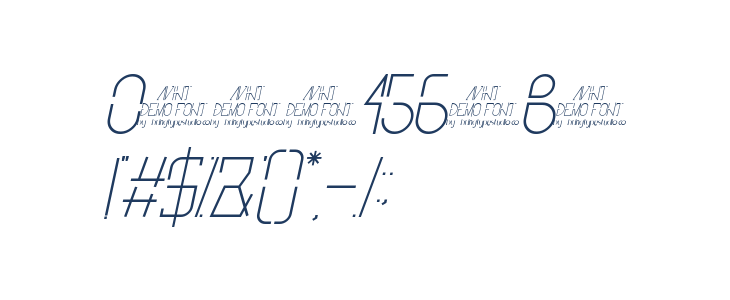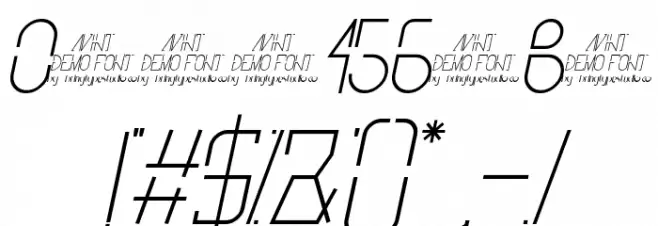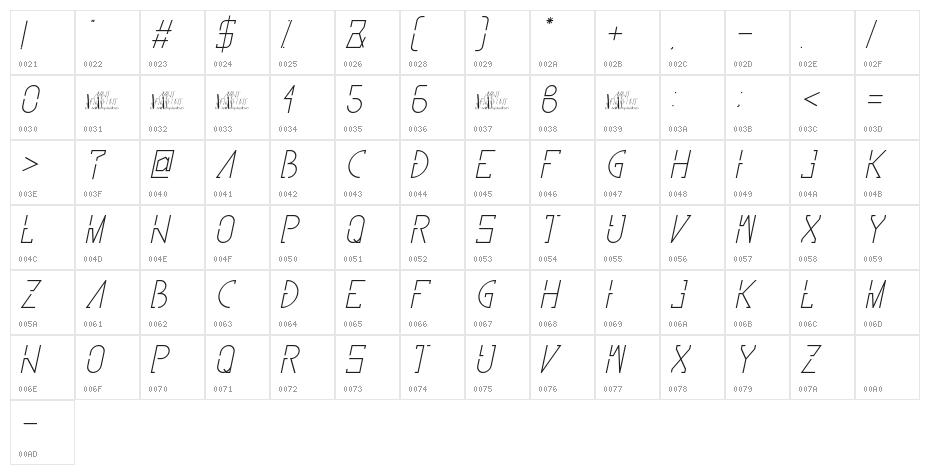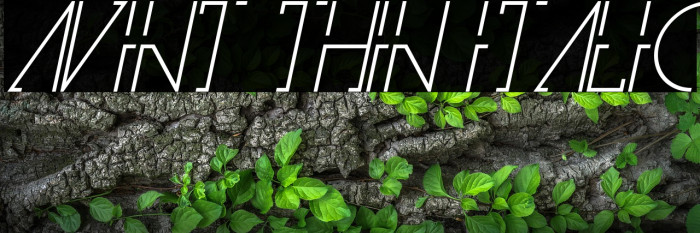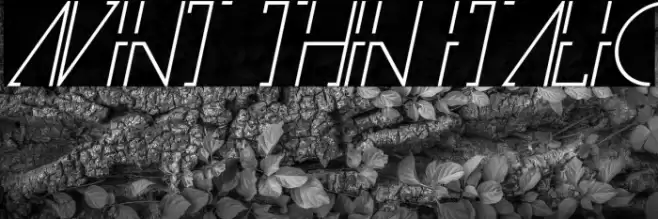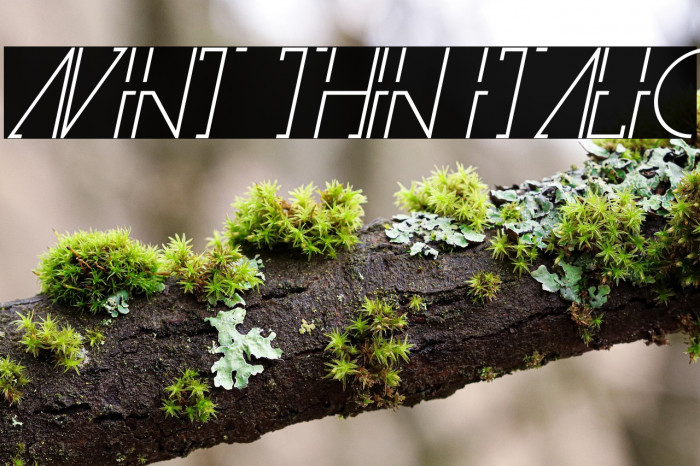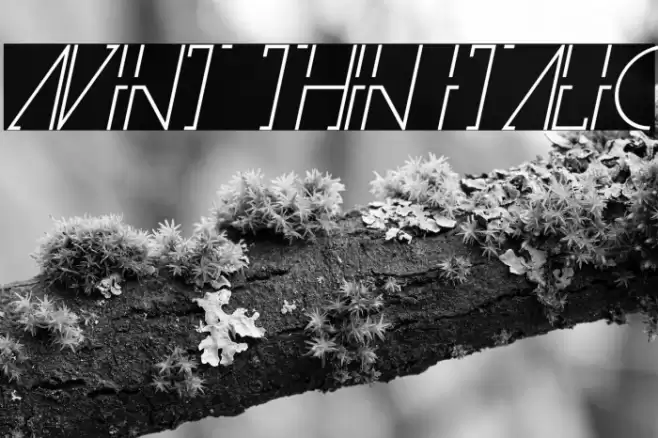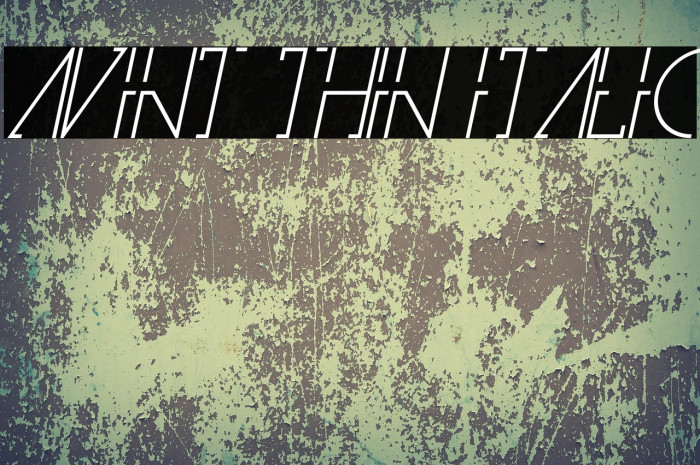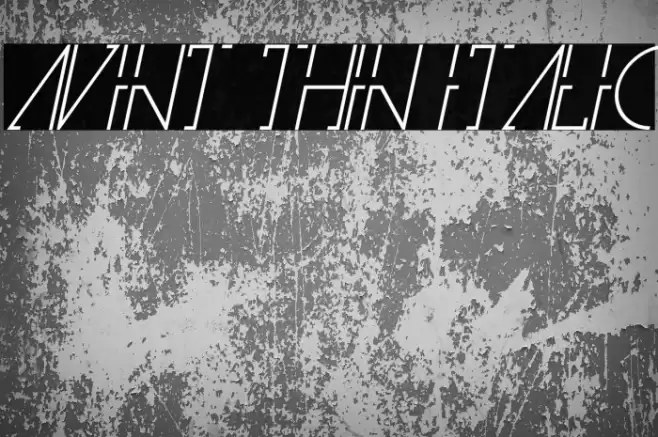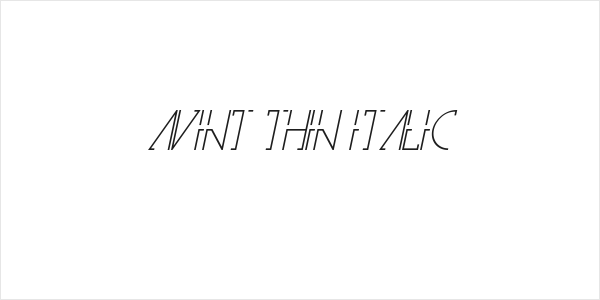
Avint Thin Italic Font
Avint Thin Italic Description
This font features a sleek, modern design with a thin, italicized style. The characters are elongated and angular, giving them a futuristic and dynamic appearance. The uppercase letters have a distinct geometric quality, while the lowercase letters maintain a consistent flow with sharp edges. The numbers and special characters follow the same design principles, ensuring a cohesive look across all elements. The overall aesthetic is clean and minimalistic, making it suitable for contemporary design projects.
| Use Case | Logos, Headlines, Digital media |
| Proposed Projects | Ideal for tech branding, modern posters, futuristic designs, and digital media projects. |